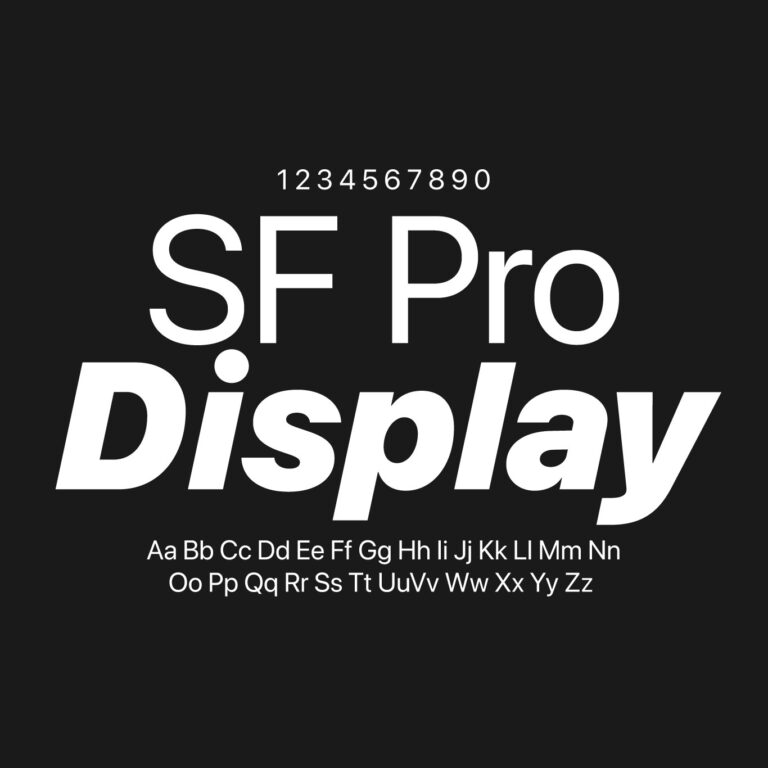
This font is part of Apple’s San Francisco type system. The Display cut is made for larger typography, including headlines, titles, hero sections, product screens, app mockups and presentation layouts.
Use it when you want clean Apple-style interface typography with a polished and neutral look. For smaller labels, captions, menus and dense UI text, SF Pro Text is usually the better choice.
Typeface System: San Francisco / SF Pro
Display vs Text
The Display version is the right choice for larger text. It works well in app hero screens, product titles, landing page headings, poster-style UI previews and Apple-inspired presentation covers.
The Text version is better for smaller reading sizes. Use it for labels, menus, settings screens, captions, form fields and long interface copy.
This distinction matters in UI design. A headline font can look clean at large sizes, but the same style may feel tight or less comfortable in small text. That is why Apple separates display and text cuts inside the San Francisco system.
Usage Notes
This family works best when the layout needs a modern product interface feeling. It is a strong choice for iOS-style screens, macOS mockups, SaaS hero sections, software landing pages and UI kit previews.